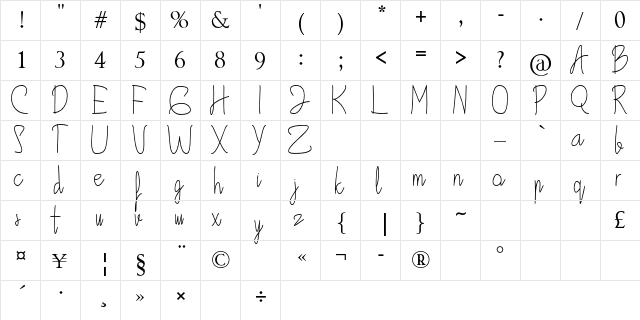
Awali Regular
| Designer | Adib |
Design Context for Awali Typeface
Awali takes a measured approach to typography — its balanced proportions and neutral character make it a reliable workhorse for both digital and print work.